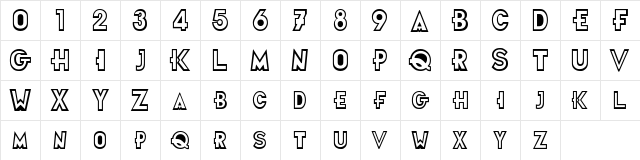
Futurama Title Font Regular
Design Context for Futurama Title Font Typeface
Futurama Title Font channels digital-age aesthetics through its sharp, structured letterforms — ideal for brands that want to signal innovation.
Pro Tip: Try Futurama Title Font with generous letter-spacing in UI labels and navigation — the geometric forms benefit from room to breathe.